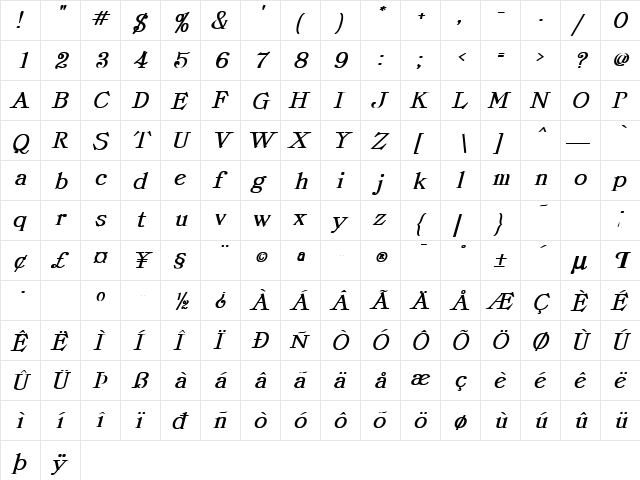
ProvLite-BoldIt Normal Font Preview
ProvLite-BoldIt Normal
ProvLite-BoldIt Normal Font Details
Design Context for ProvLite-BoldIt Typeface
ProvLite-BoldIt offers clean, dependable letterforms without strong stylistic allegiance, making it a practical choice for designers who need flexibility. Its bold stroke weight gives it real presence on the page.